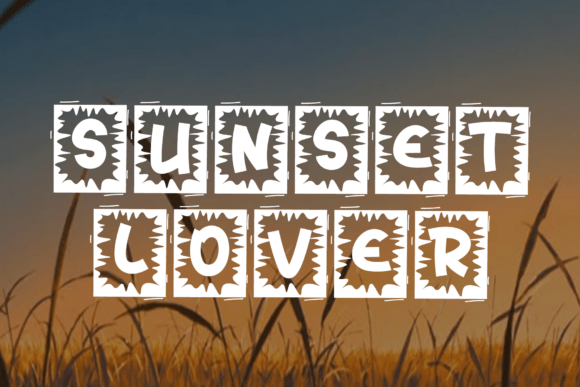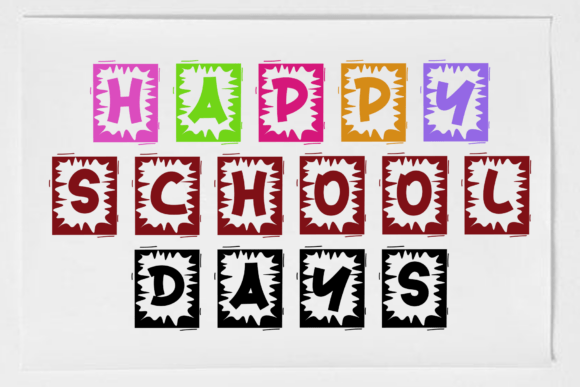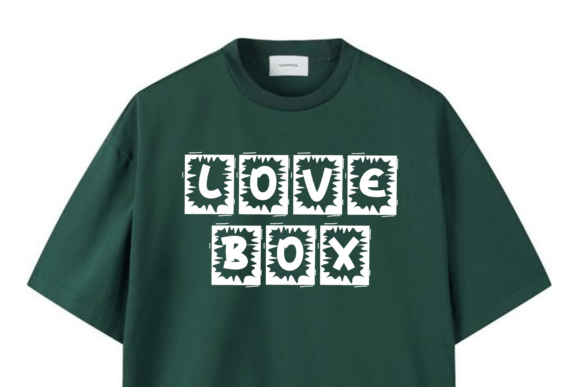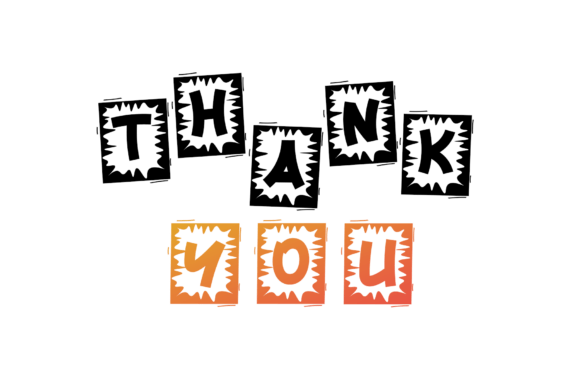
Unleash Your Creativity with Black Boxs Font
Are you tired of using the same old fonts that seem to blend into the background? Look no further than Black Boxs, a high-energy, illustrative display font that’s sure to make your designs pop. With its playful, DIY aesthetic and distressed, comic-style frames, Black Boxs is the perfect choice for designers who want to break the mold and add some excitement to their work.
The Unique Characteristics of Black Boxs
Black Boxs is more than just a font – it’s a statement piece. Each character is housed within its own distressed, comic-style frame, giving it a bold and eye-catching appearance. The thick, hand-drawn letterforms are set against explosive, jagged-edged backgrounds, adding to the font’s energetic and playful vibe. Whether you’re looking to create streetwear branding, edgy editorial headlines, indie music posters, or energetic social media content, Black Boxs has got you covered.
The Power of Staggered, Ransom-Note Rhythm
The true strength of Black Boxs lies in its staggered, ransom-note rhythm. The “boxed-in” effect creates an instant graphic element, making it perfect for designs that need to stand out. This unique feature allows you to create visually appealing and dynamic text that grabs the reader’s attention. Whether you’re using the classic black-and-white style or applying vibrant gradients, Black Boxs turns every word into a bold visual statement.
One of the best things about Black Boxs is its versatility. The font can be used in a variety of design applications, from streetwear branding to indie music posters. The classic black-and-white style is perfect for creating bold and edgy designs, while vibrant gradients can add an extra layer of excitement. Whether you’re a designer, craft, or DIY enthusiast, Black Boxs offers endless design possibilities.
Black Boxs is a font that’s specifically designed with designers and crafters in mind. Its unique and playful aesthetic makes it perfect for anyone who wants to add some excitement to their work. Whether you’re creating designs for clients or working on personal projects, Black Boxs is a great choice. The font is easy to use and can be applied to a wide range of design applications, from print to digital.
Make the Box the Star of the Show
For too long, designers have been told to think outside the box. But with Black Boxs, it’s time to turn that idea on its head. This font is all about embracing the box and making it the star of the show. With its bold and eye-catching design, Black Boxs is the perfect choice for anyone who wants to create designs that pop. So why settle for boring and bland when you can make the box the star of the show?
Key Features of Black Boxs
- High-energy, illustrative display font
- Playful, DIY aesthetic
- Distressed, comic-style frames
- Thick, hand-drawn letterforms
- Explosive, jagged-edged backgrounds
- Staggered, ransom-note rhythm
- “Boxed-in” effect creates an instant graphic element
- Perfect for streetwear branding, edgy editorial headlines, indie music posters, or energetic social media content
Get Ready to Break the Mold
If you’re ready to take your designs to the next level, it’s time to try Black Boxs. This font is the perfect choice for designers who want to break the mold and add some excitement to their work. With its unique and playful aesthetic, Black Boxs is sure to make your designs stand out. So why wait? Get ready to break the mold and make the box the star of the show with Black Boxs.